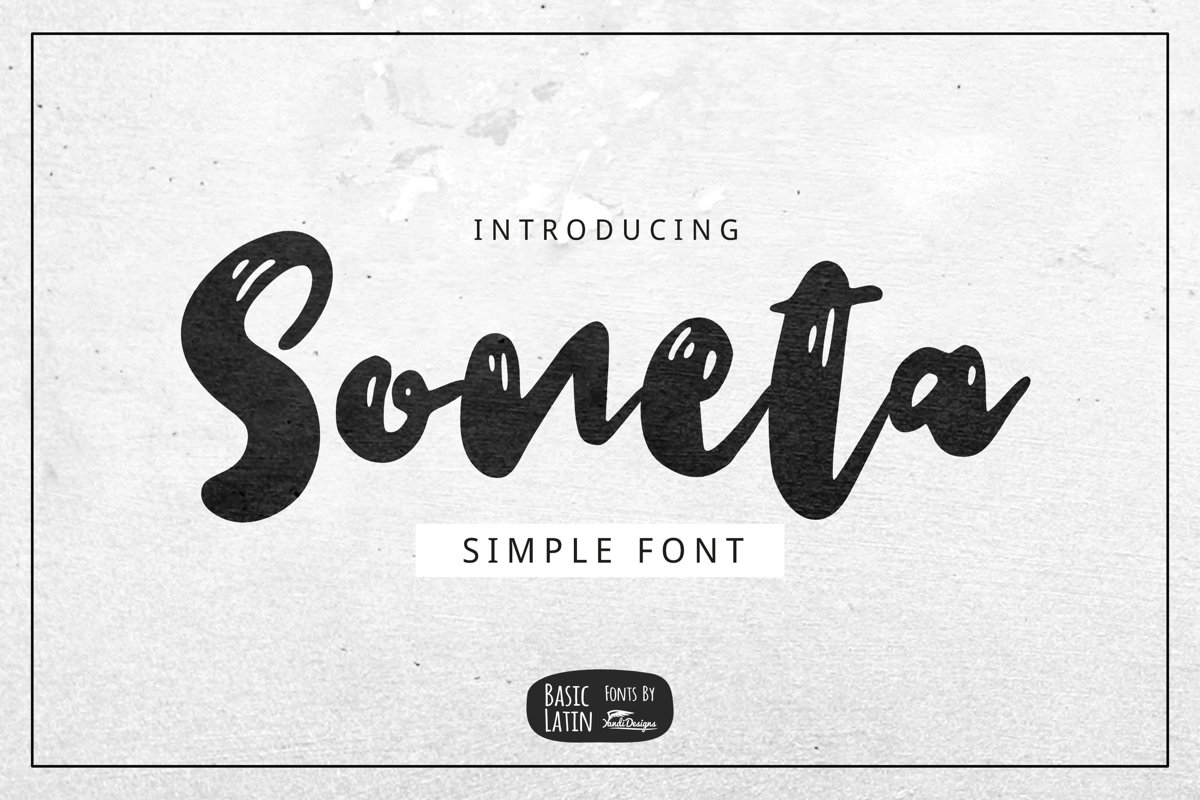
Soneta Font
Soneta font is simple artistic multipurpose handmade brush font , suitable for many project children book, quotes, logo , heading , title etc.